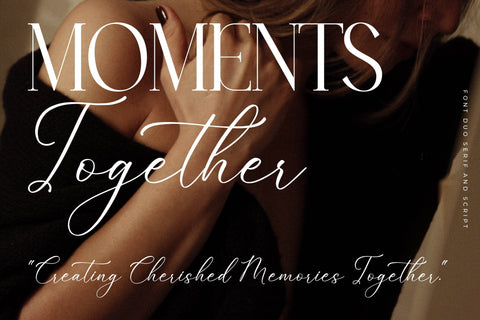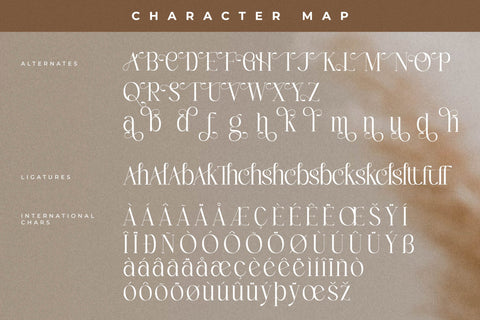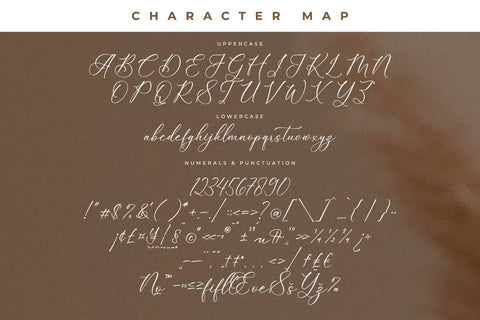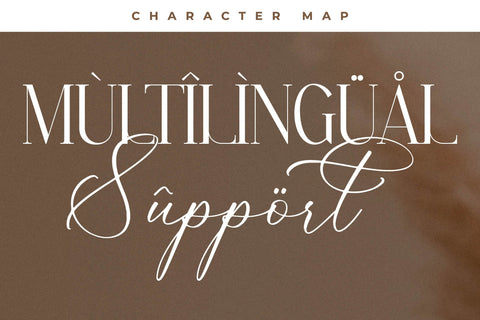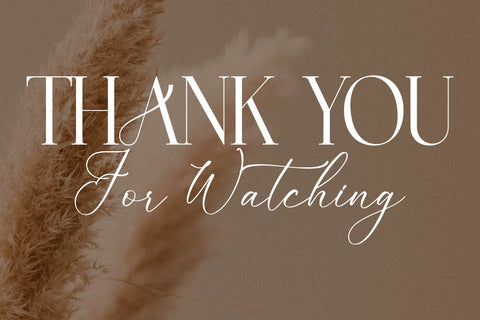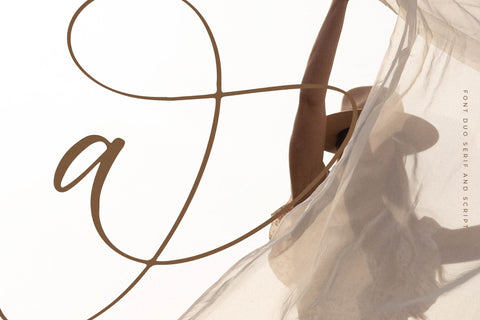
Enchanted Hermion Font Duo
Proudly present Enchanted Hermion Font Duo , created by Storytype,
A serif and script typeface that has own unique style & modern look.